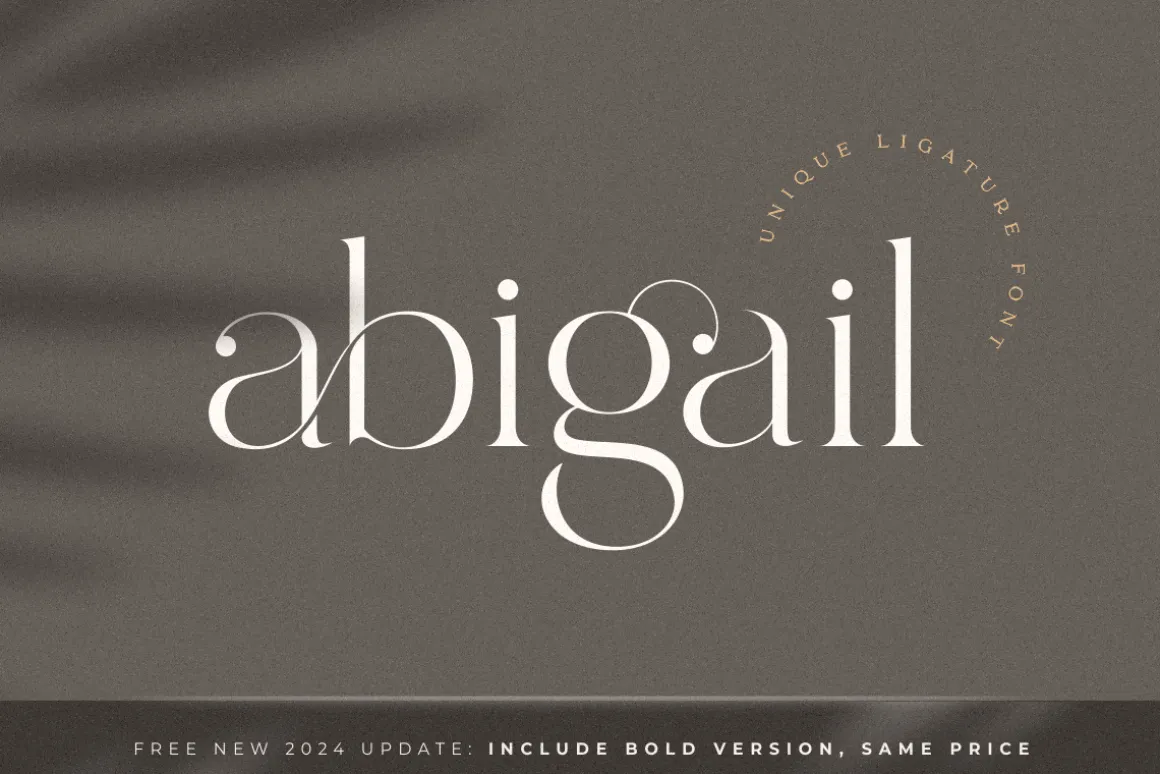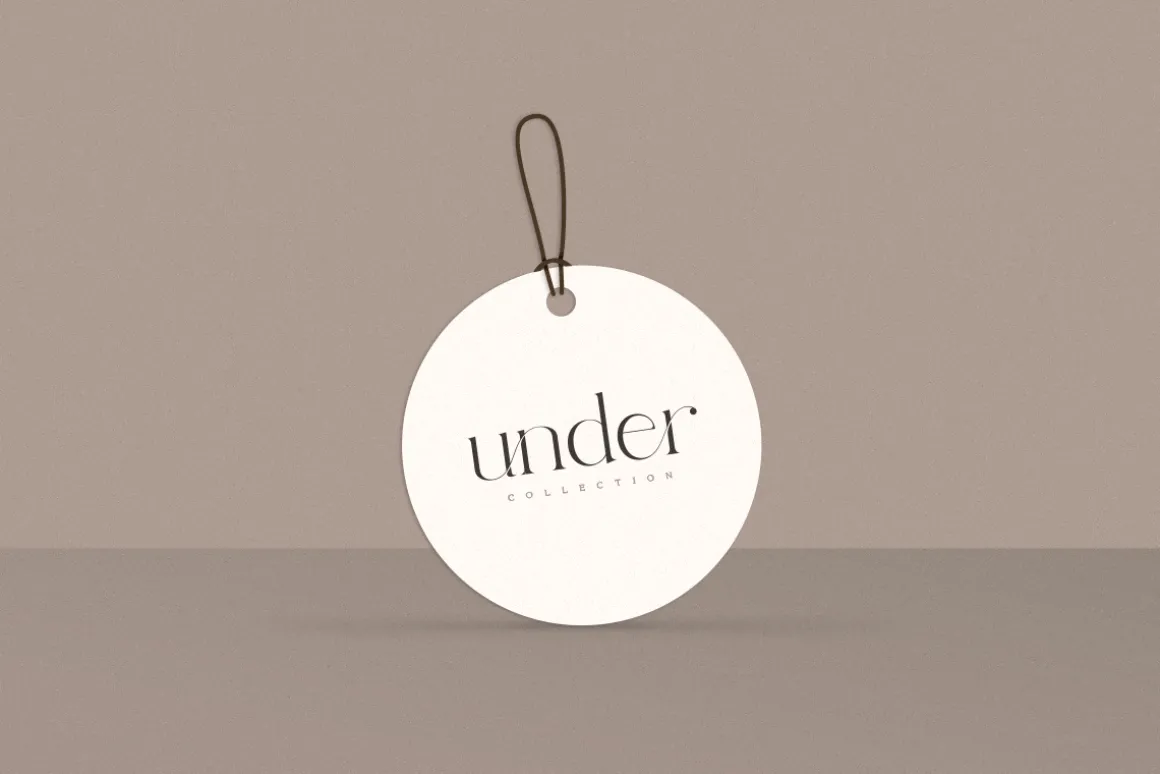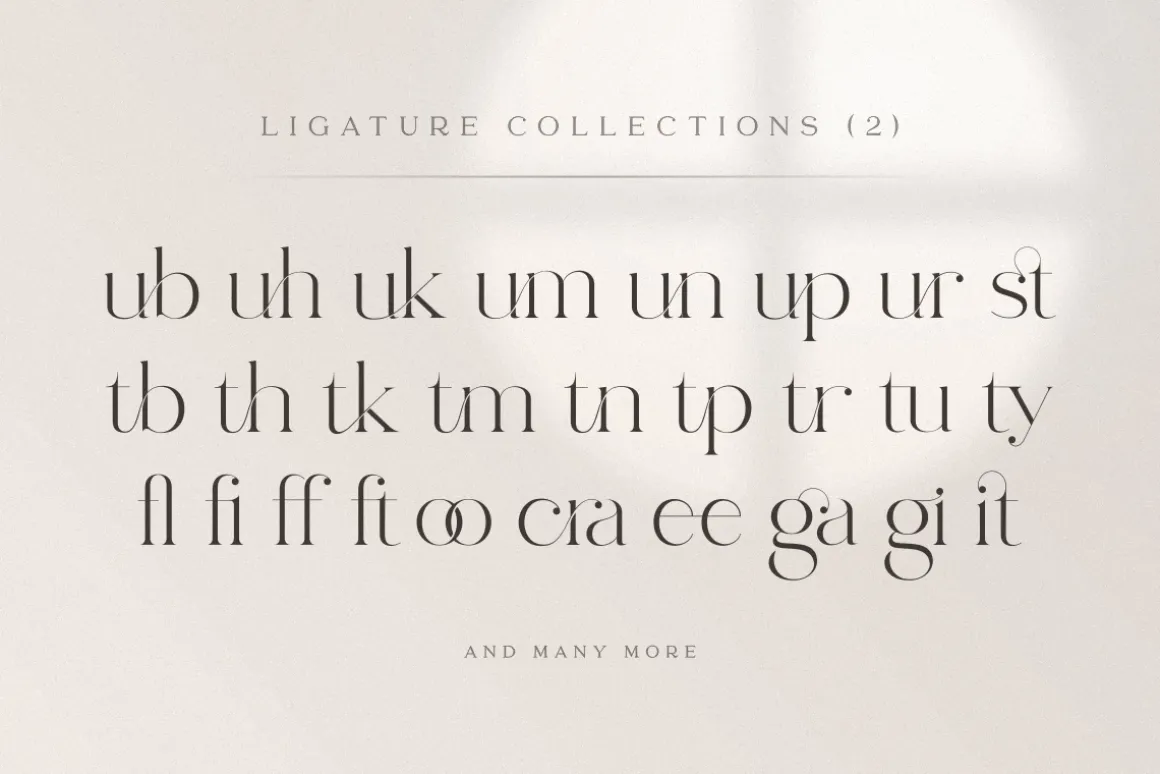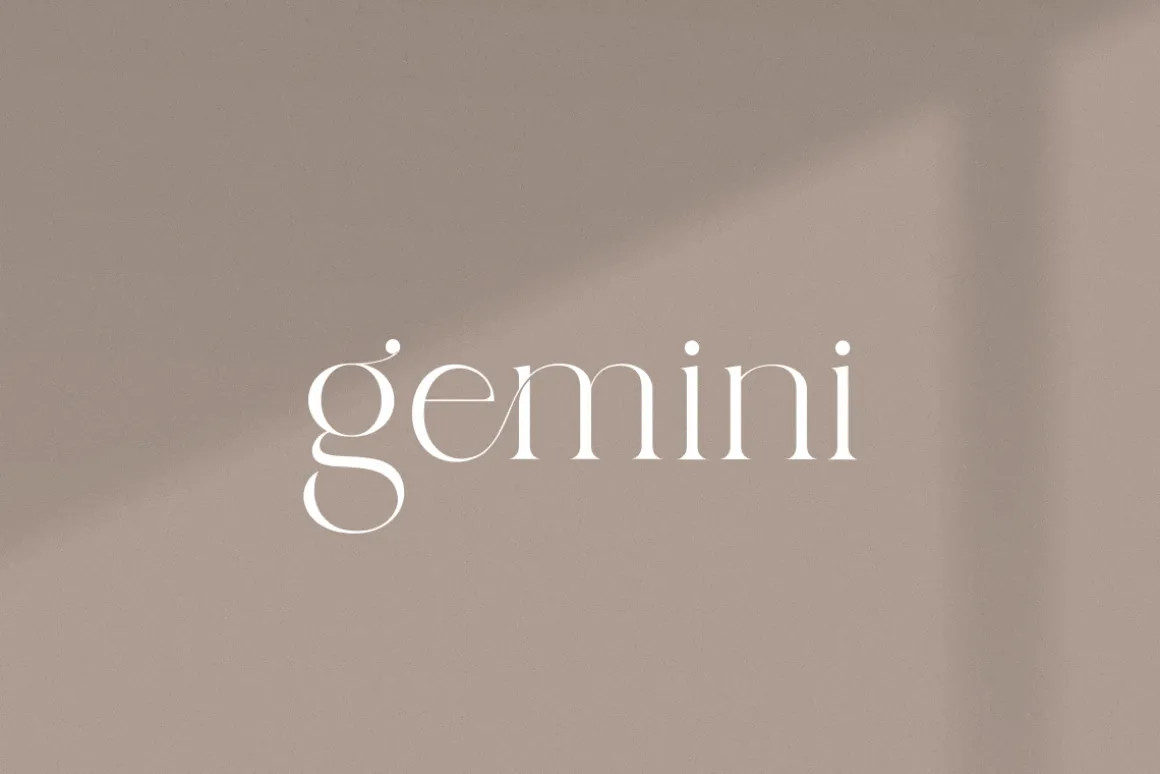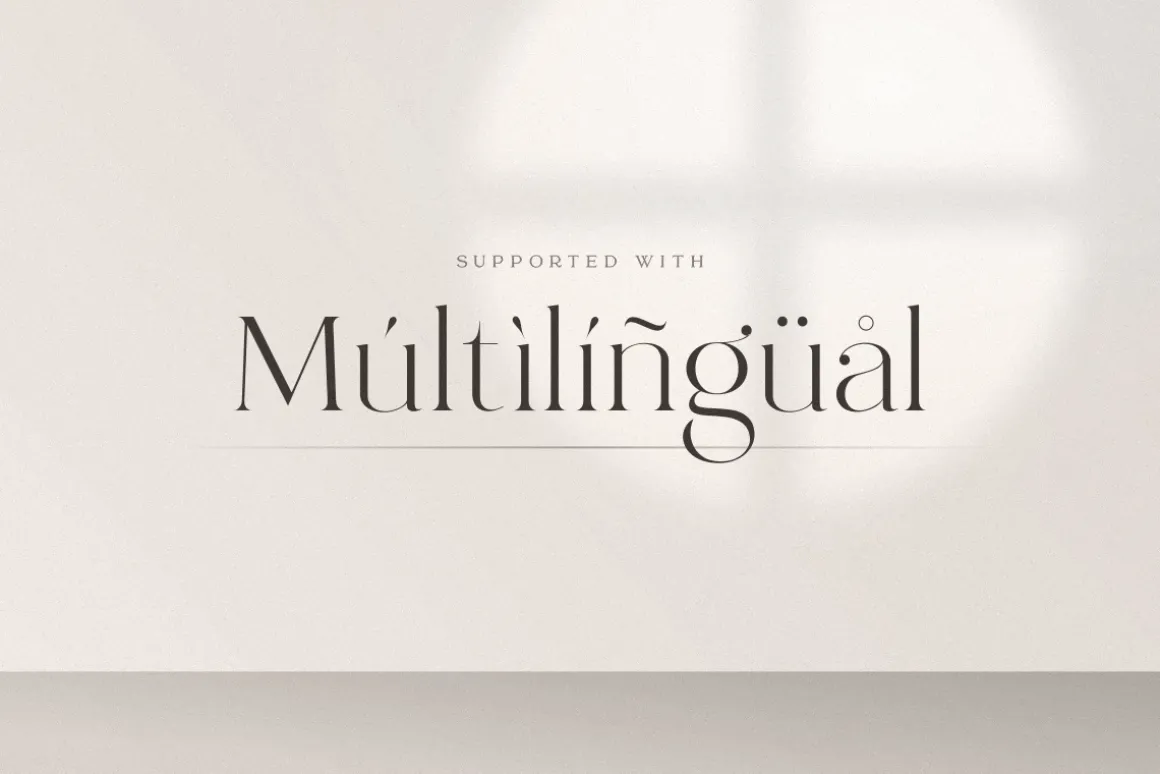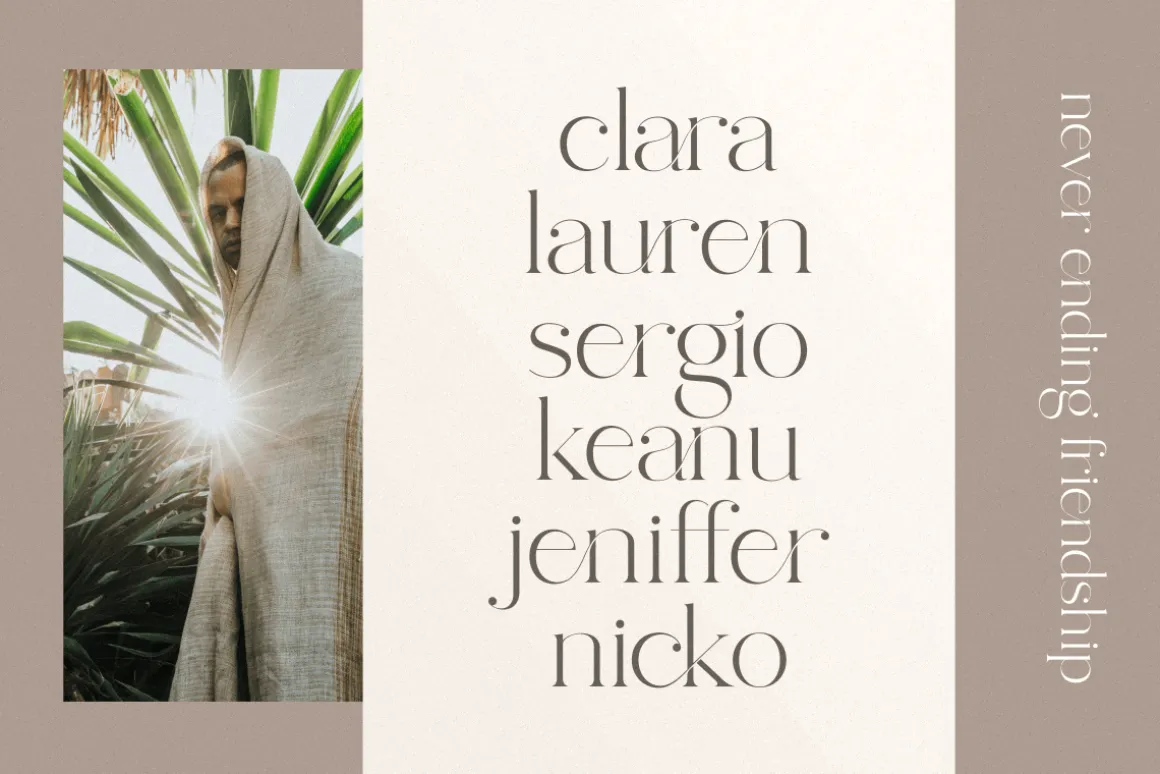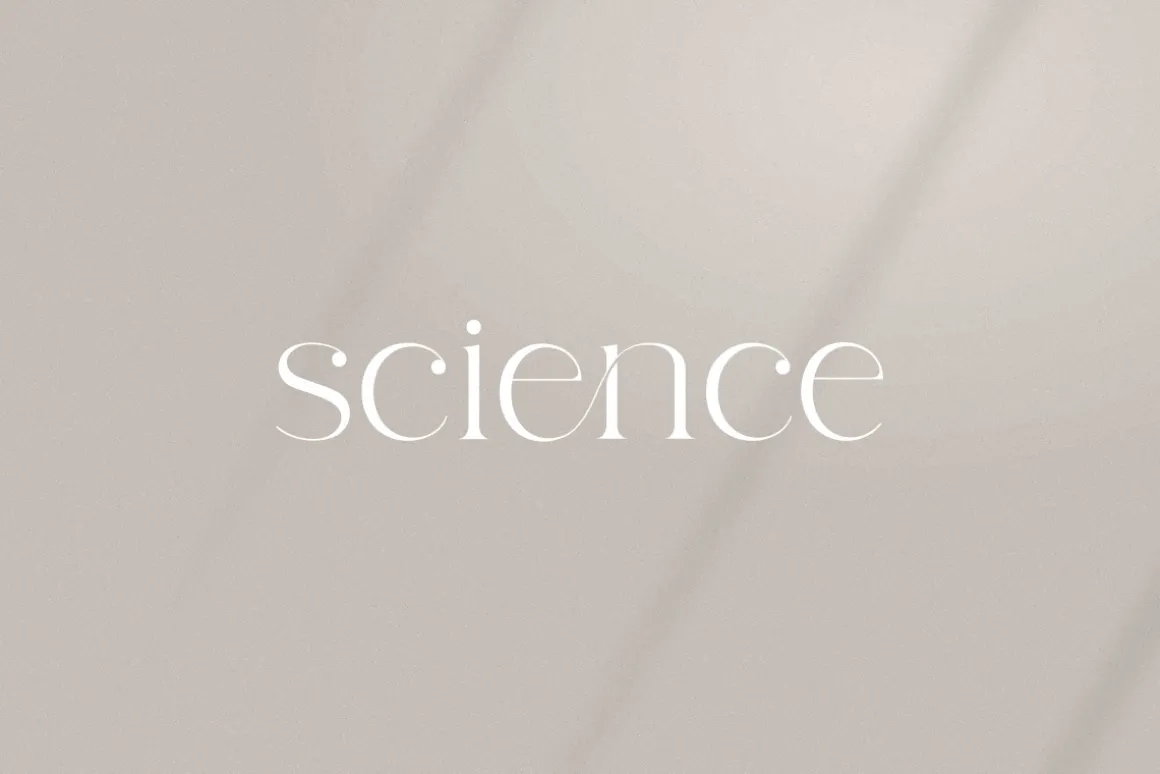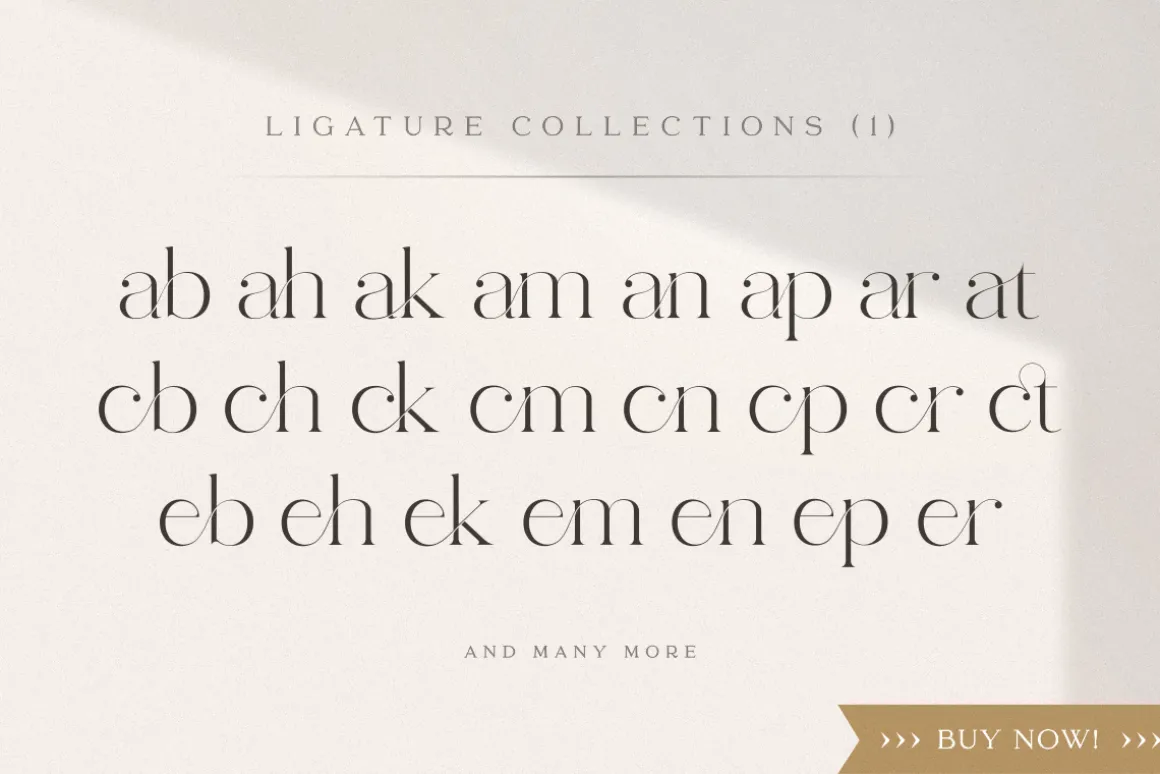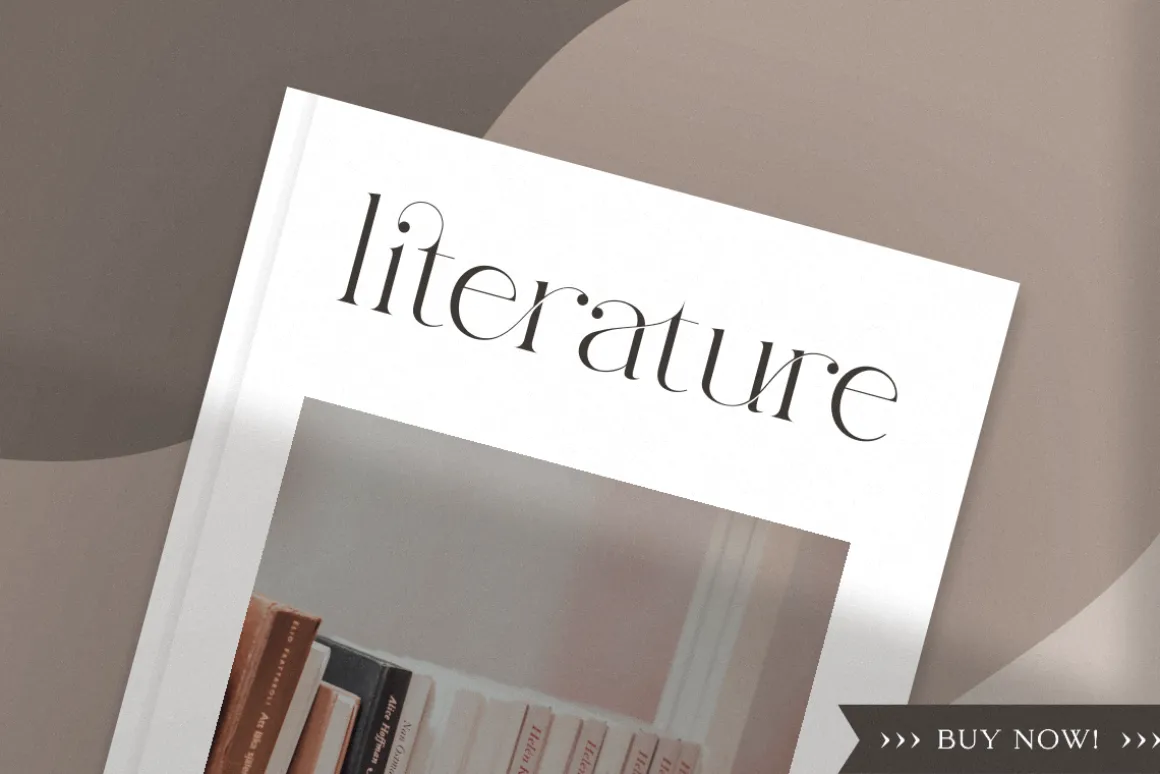
Abigail is an unique and very elegant font for brand and logo design.
Based on our experience as a graphic designer who works for a lot of companies, we often are requested to design a logo in a unique style but with an elegant shape. So, we try to brainstorming and create this font to make the idea is going out. This is perfect for BRANDING and LOGO DESIGN. You will get classy, elegant, and certainly unique logos with this font.
To make it look more unique, here we prepared some ligatures:
ab ah am an ar ak ap at oo cb ch ck cm cn cr ct eb eh ek em en ep er ub uh uk um un up ur st tb th tk tm tn tp tr tu ty fl fi ff ft oo cra ee ga gi it
UPDATE v2 – New Additional Ligatures: ob oh om on op or Wish You enjoy it. 🙂
Abigail is also included full set of:
uppercase and lowercase letters
multilingual symbols
numerals
punctuation